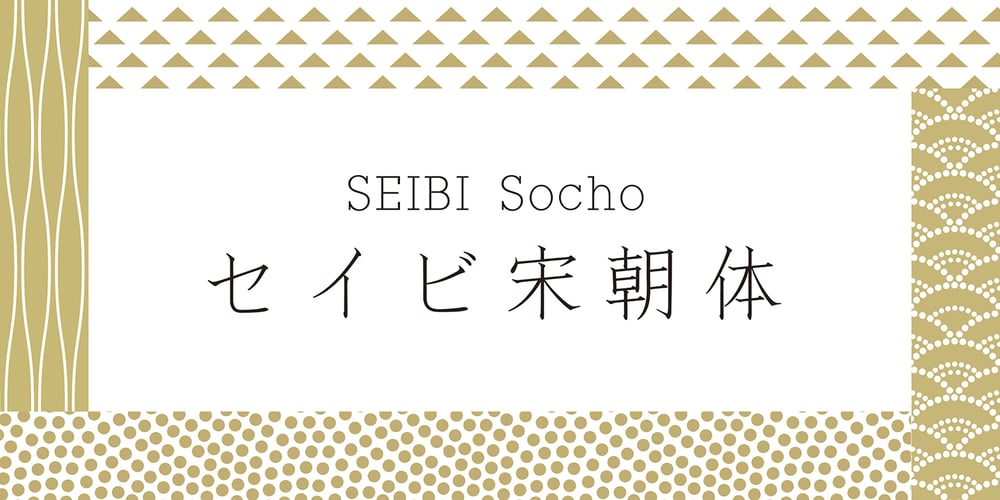
Seibi Socho Font Family was designed by published by Nihon Literal. Seibi Socho contains 1 styles and family package options. The Socho (Song Dynasty-style) typeface is based on a style used for woodblock printing in Song-period China. The SEIBI Socho typeface updates the Song style by making it simpler and sharper. With minimized size variations between kanji and kana, the design is readable both in vertical and horizontal typesetting. 宋朝体の起源は中国の宋の時代に木版印刷に使われた書体です。セイビ宋朝体は、さらにシンプルでシャープなイメージを目指しました。かな、漢字の大小があまりない、タテ組でもヨコ組でも組みやすくデザインしました。本来の宋朝体は骨が細く、右上がりの斜体がかった長体ですが、セイビ宋朝体はそのシャープな特徴を生かしたまま正体に近く、タテでもヨコでも組みやすい書体に仕上げています。毛筆とは違う、木版用書体の彫刻的な堅いエレメントも特徴です。